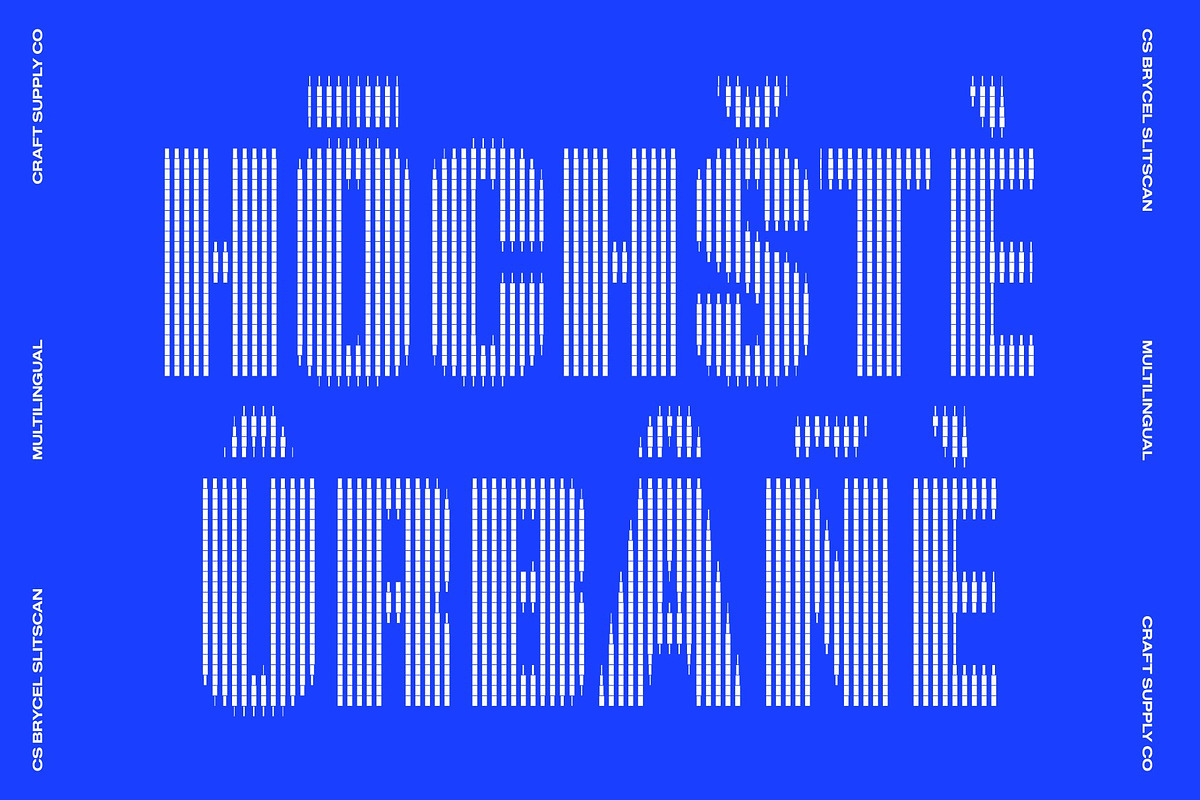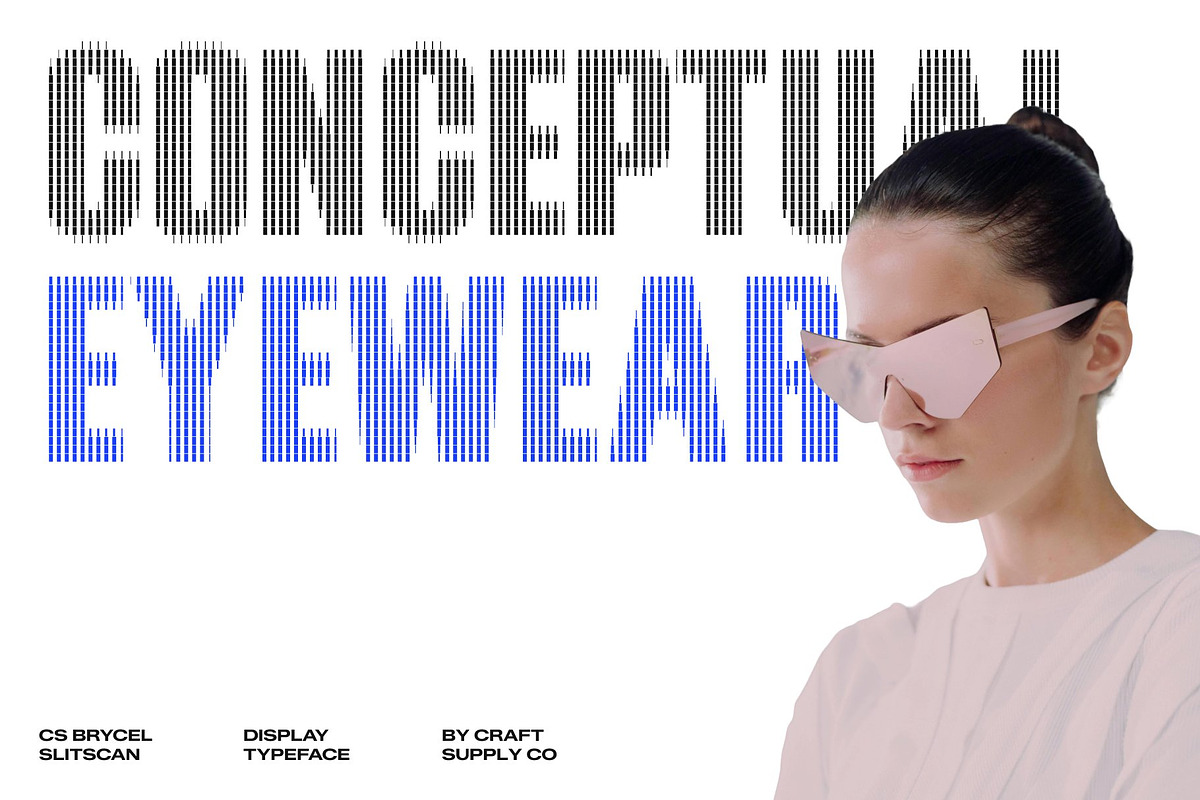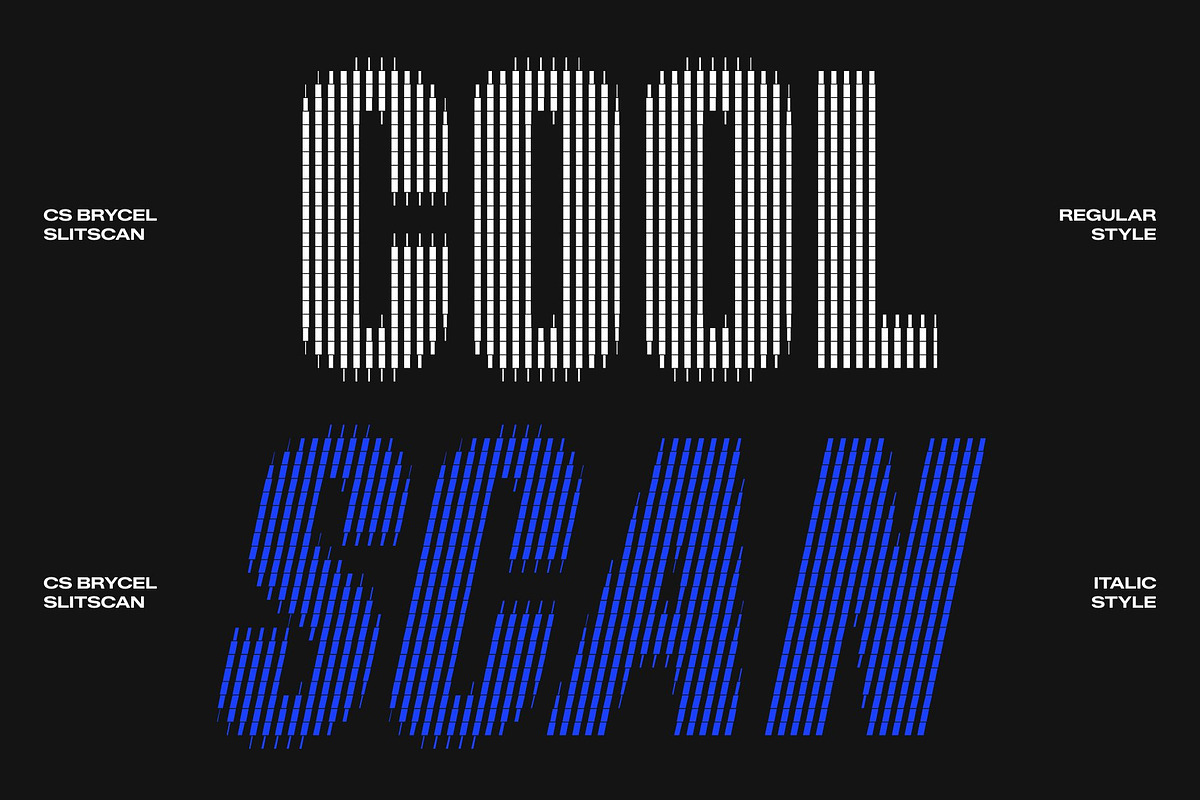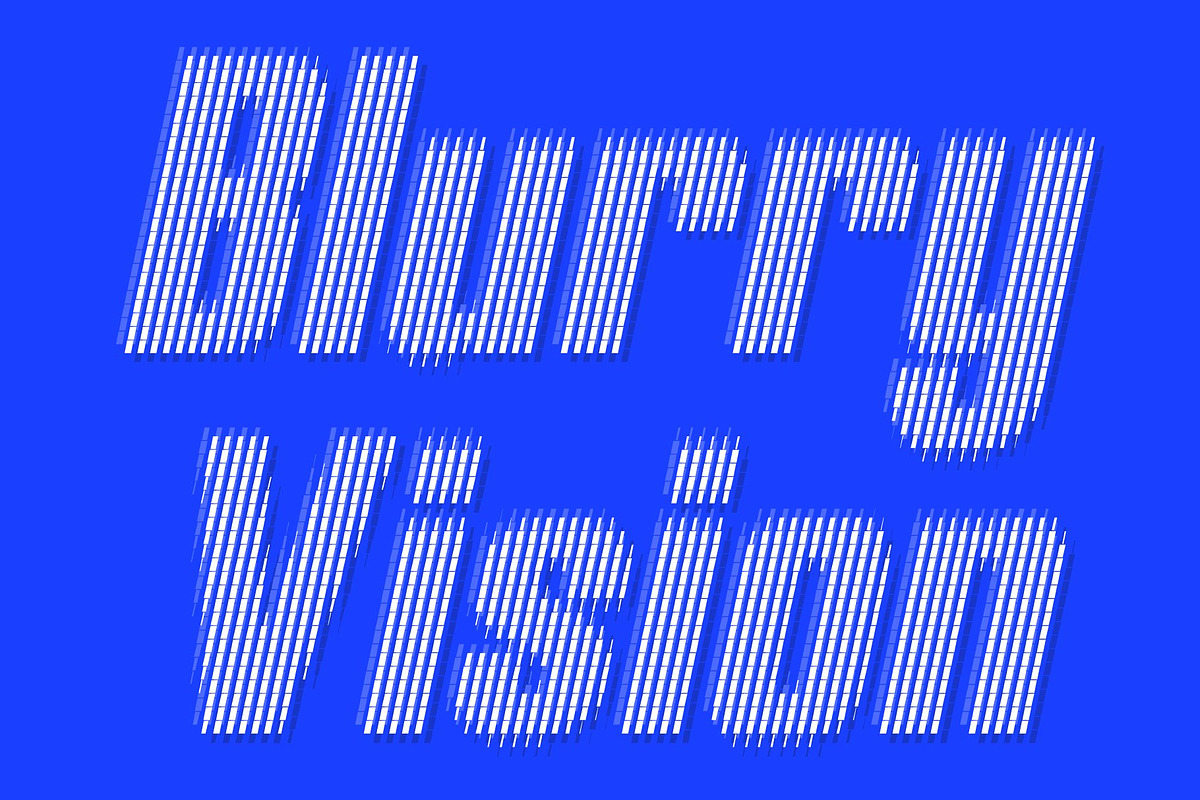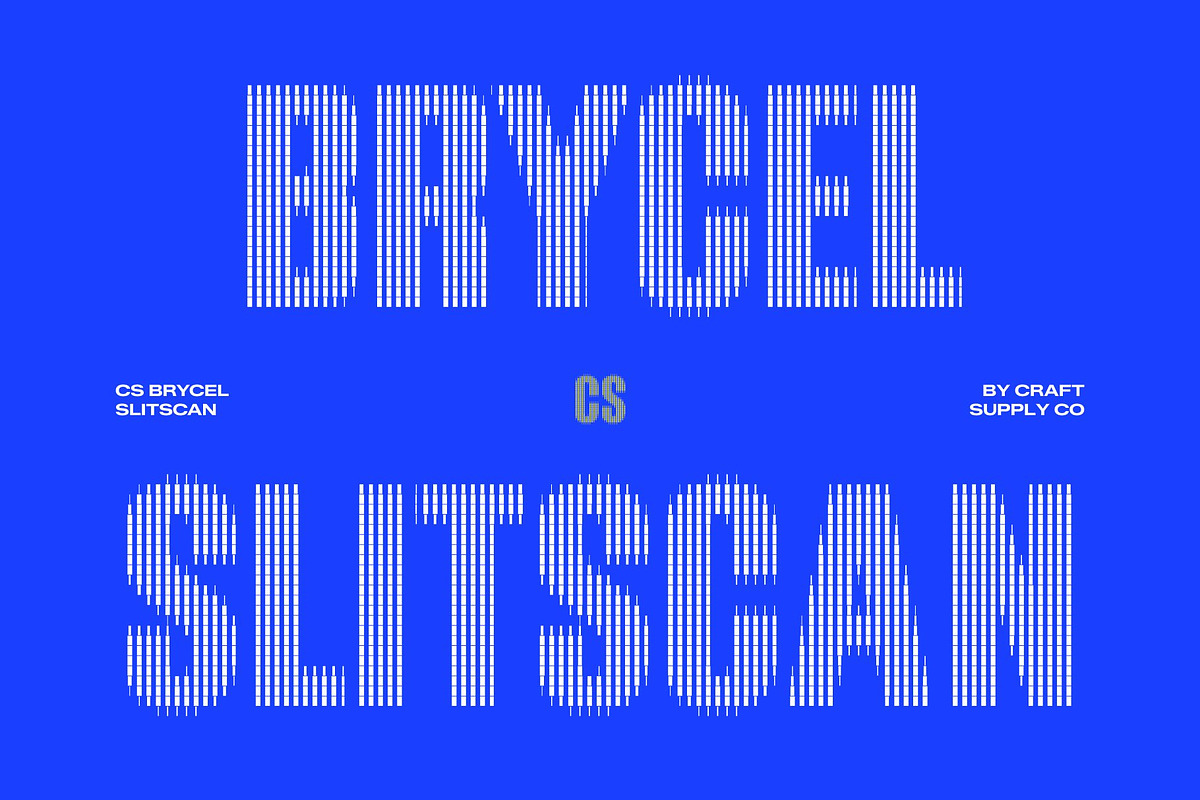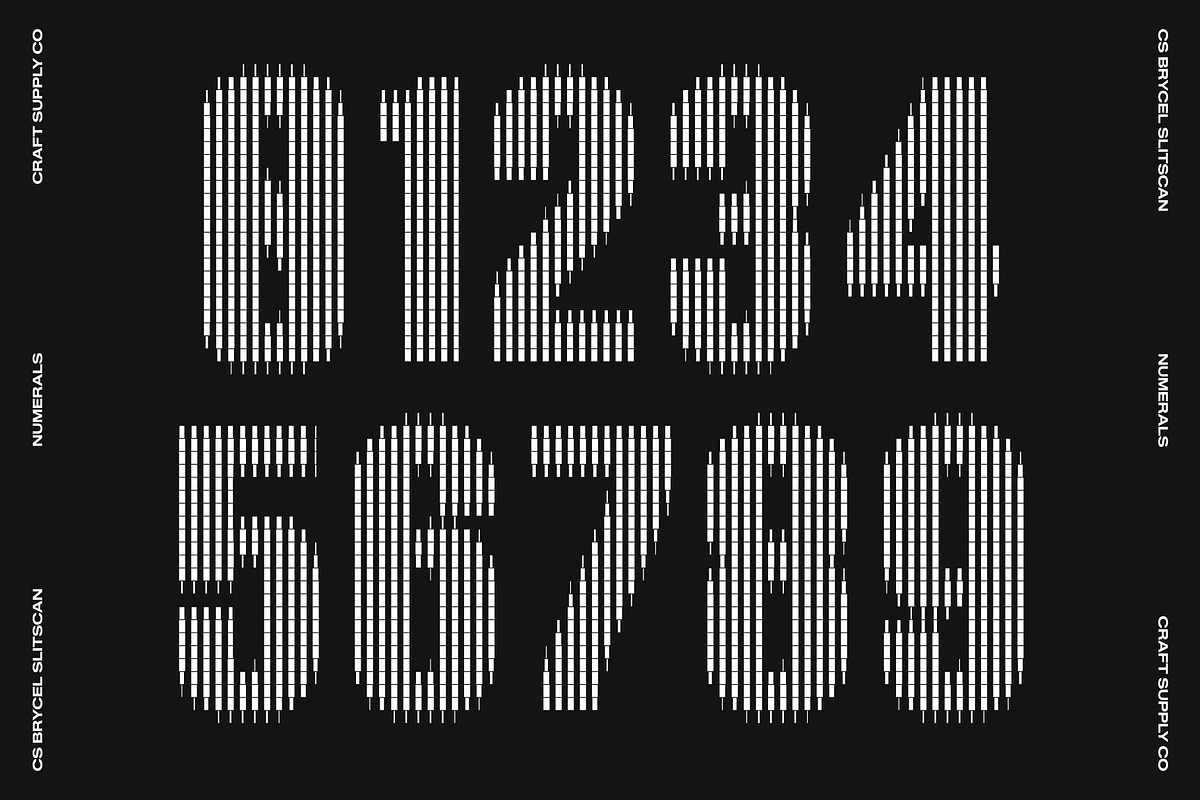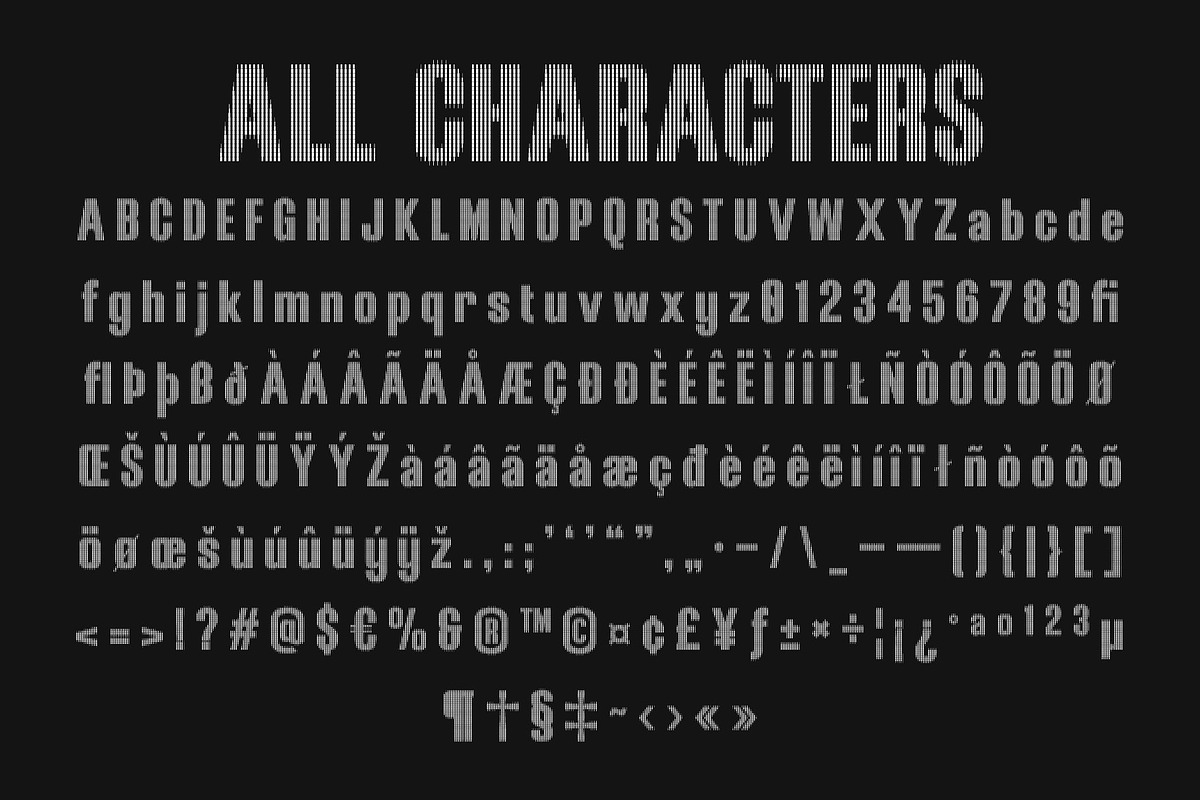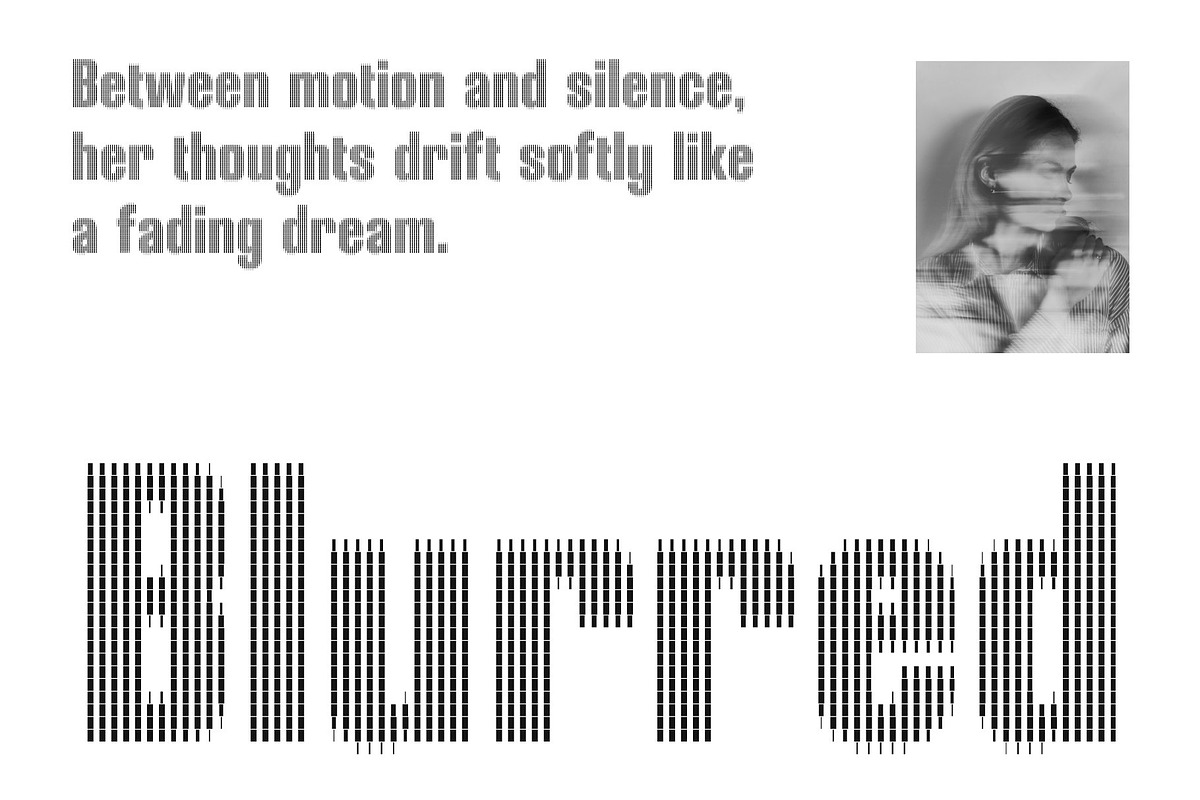
CS Brycel Slitscan
CS Brycel Slitscan – Condensed Bold Typeface: Where Industrial Power Meets Futuristic Motion
Strong Condensed Forms with Technical Precision This is a condensed bold display typeface built with an industrial spirit and engineered for visual impact. Its narrow proportions and solid structure create a commanding presence while remaining space-efficient, making headlines feel powerful, focused, and modern. Every letterform is designed to project confidence, strength, and technical precision.
Industrial Character with a Contemporary Edge This typeface blends bold geometric construction with clean, engineered letterforms to produce a sharp and assertive typographic voice. The result is a functional yet futuristic aesthetic that feels at home in modern branding, technology visuals, and high-energy creative projects.
Slitscan Effect: Futuristic Motion & Digital Distortion Inspired by the slit-scan visual technique, this font introduces vertical sliced layers that create a sense of motion, time-shift, and digital distortion. This multi-layered effect gives the font a cyberpunk, glitch-art personality while maintaining strong readability and structural clarity.
Bold Style with High Visibility Despite its experimental style, the font remains highly legible at large sizes. Its condensed weight enhances visual density, ensuring headlines stand out in posters, advertising, and bold layouts without losing clarity.
Perfect for High-Impact Creative Projects This is ideal for posters, branding, headlines, packaging, sports graphics, and technology campaigns. It excels in sci-fi posters, electronic music visuals, tech competitions, digital events, and contemporary editorial layouts that demand a bold, futuristic statement.
CS Brycel Slitscan Regular
CS Brycel Slitscan Italic